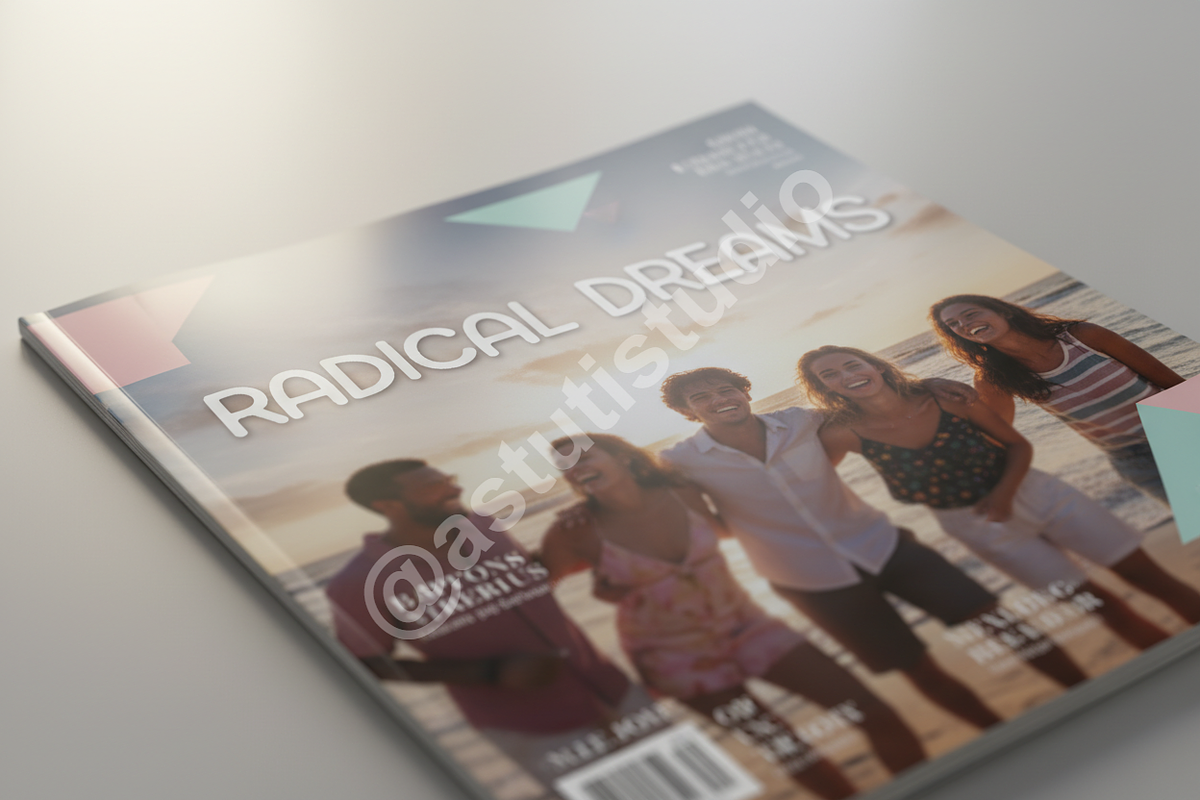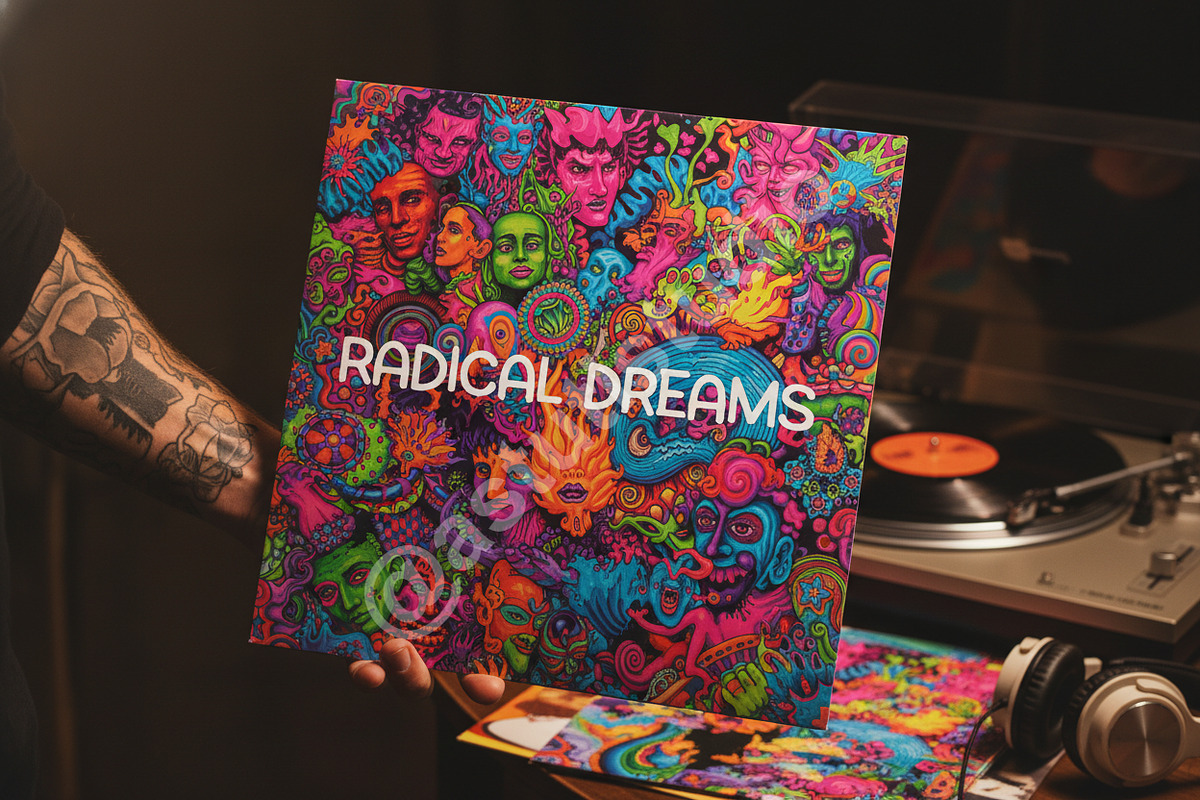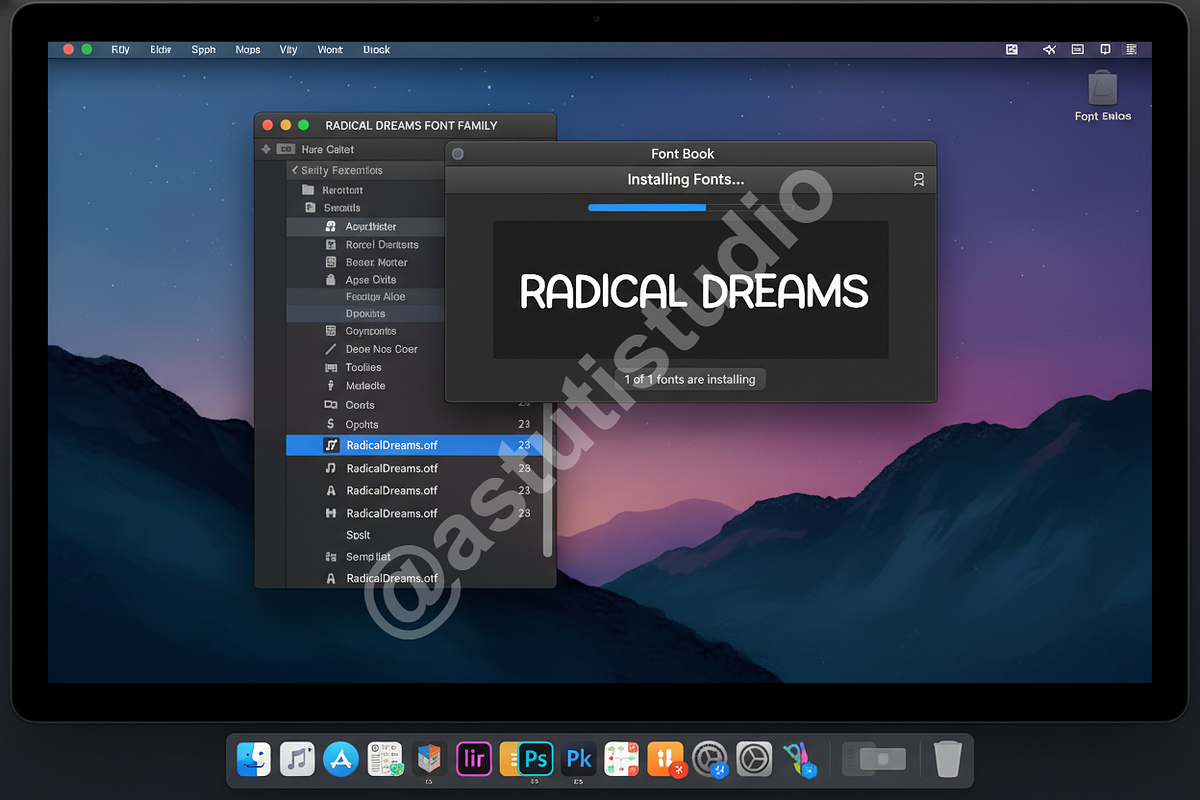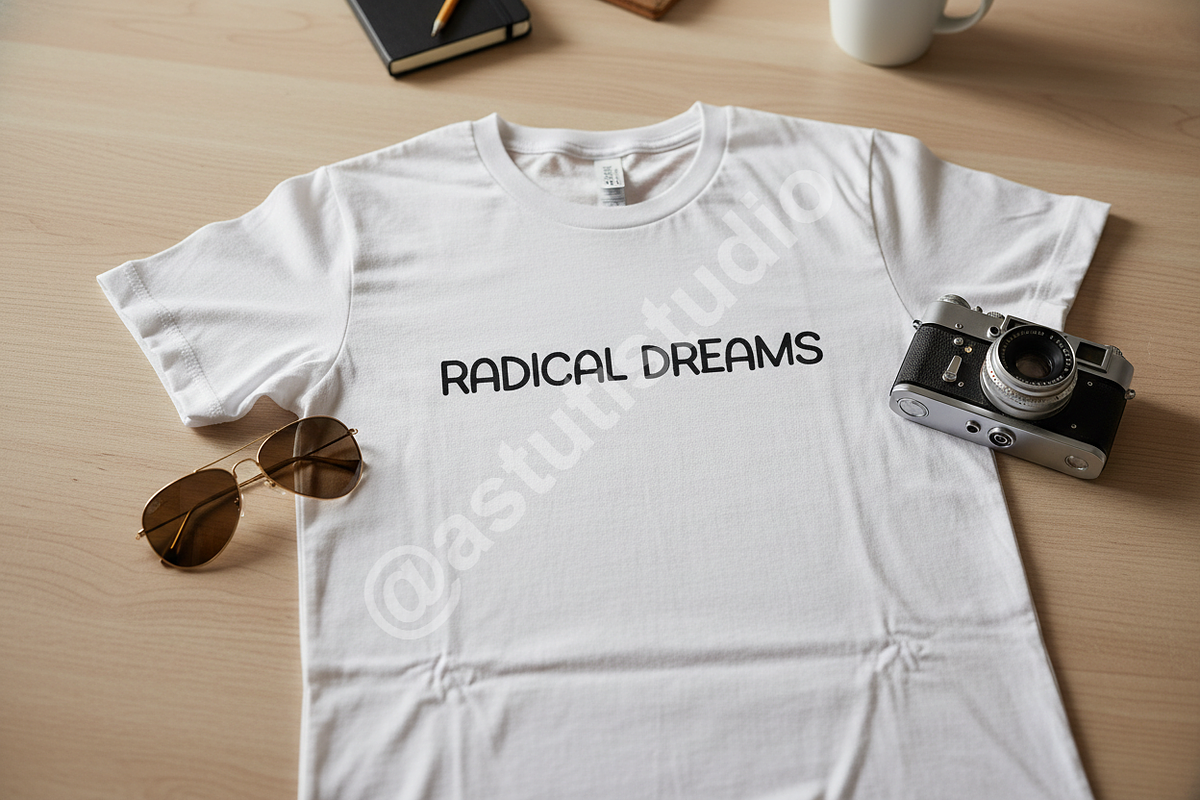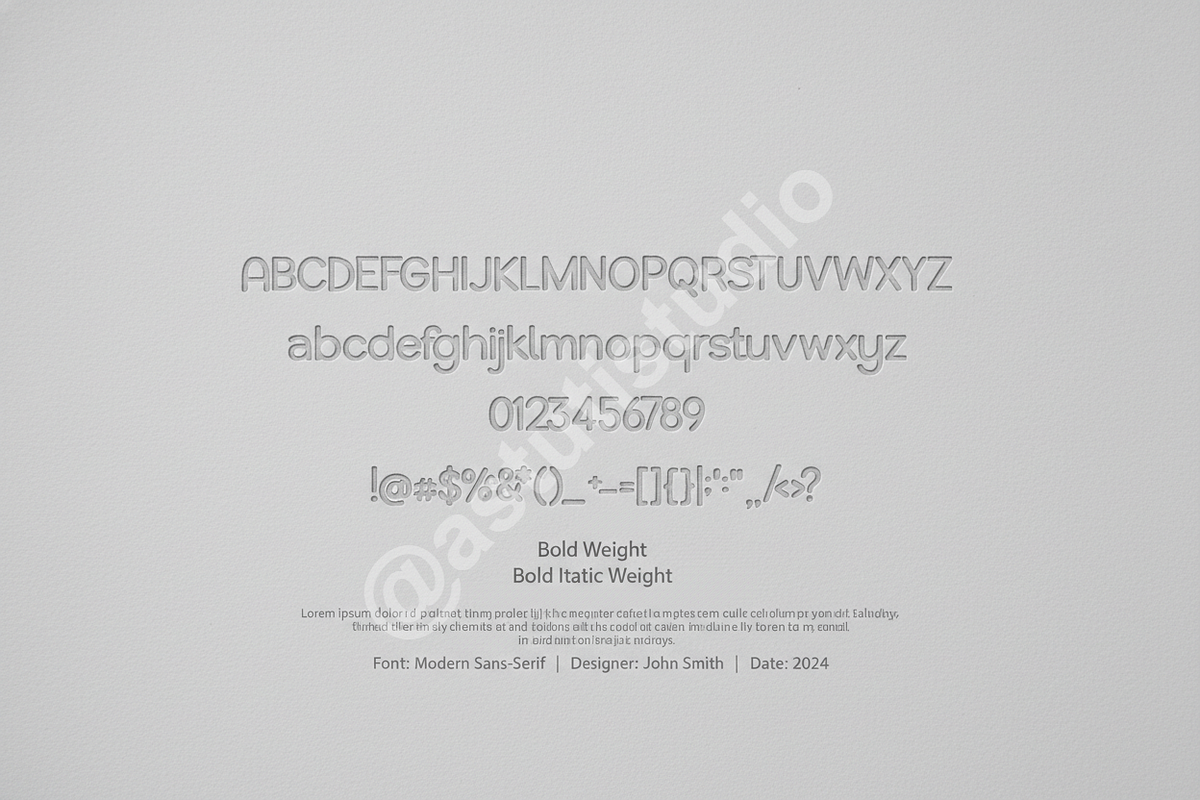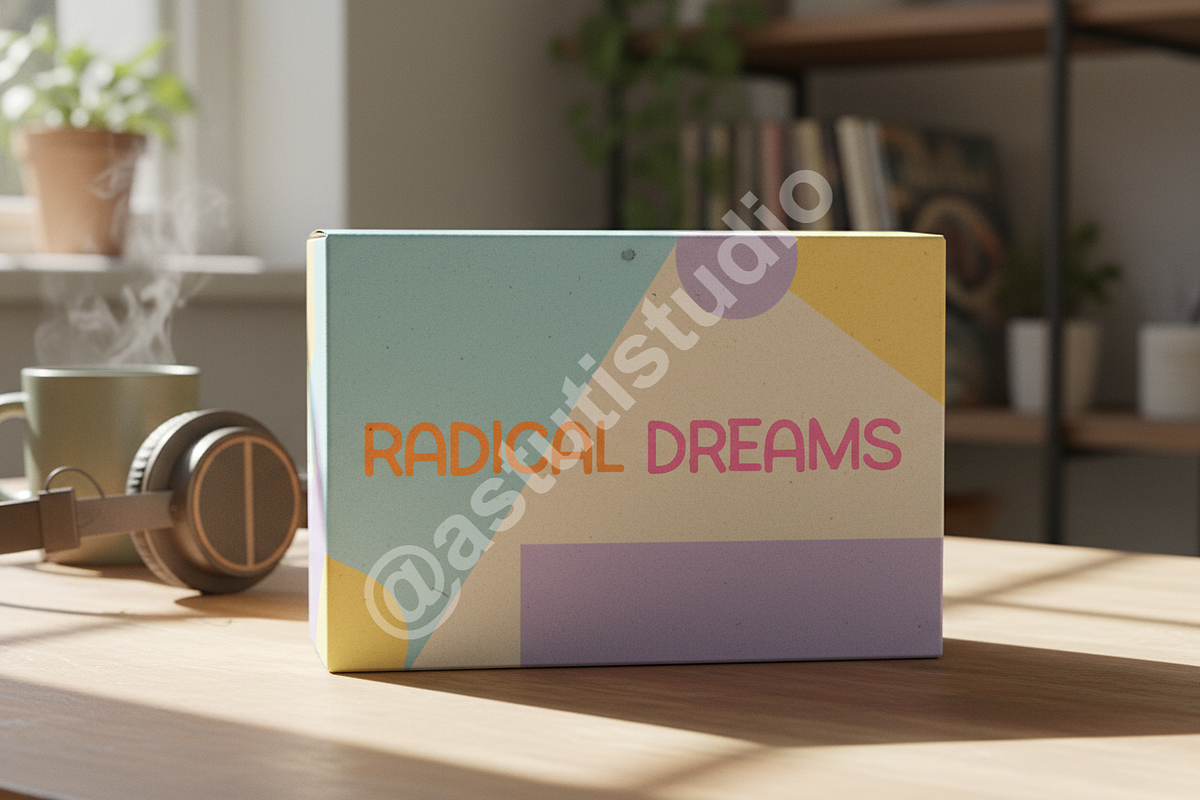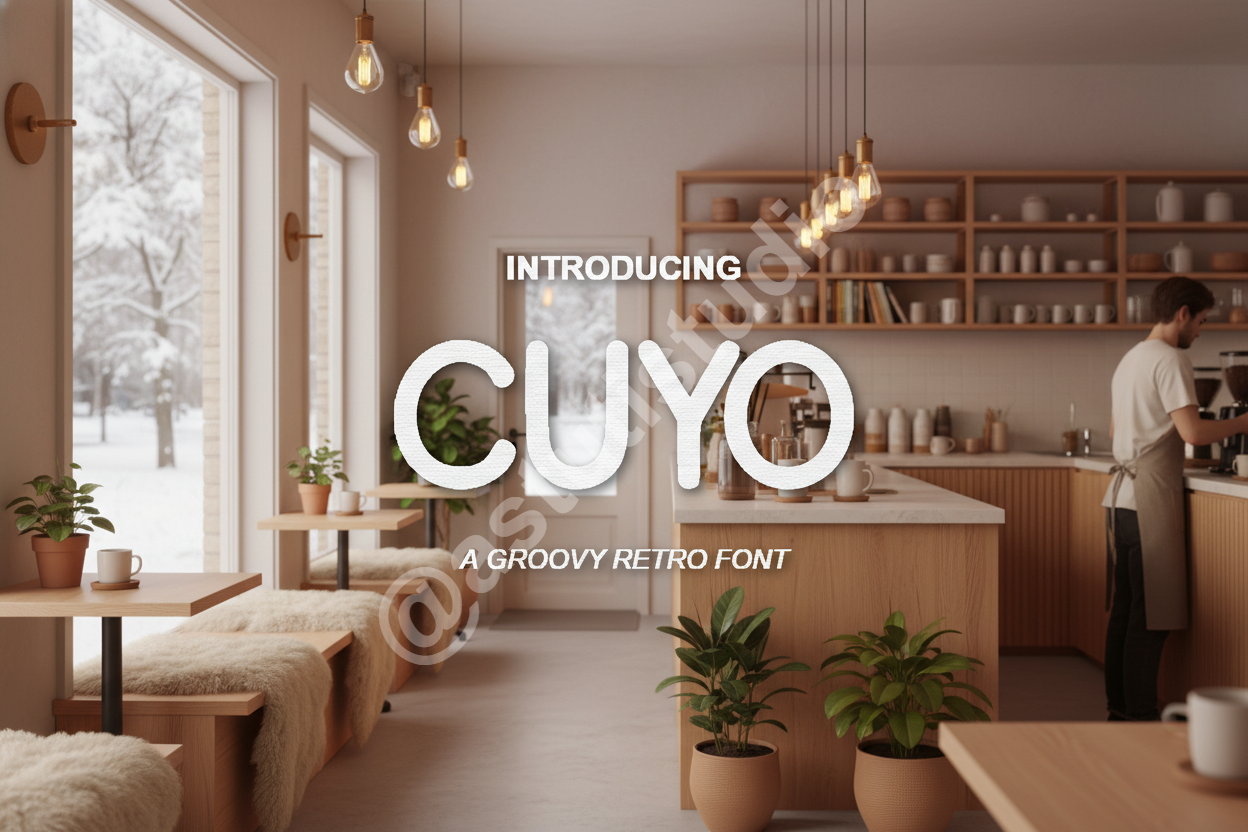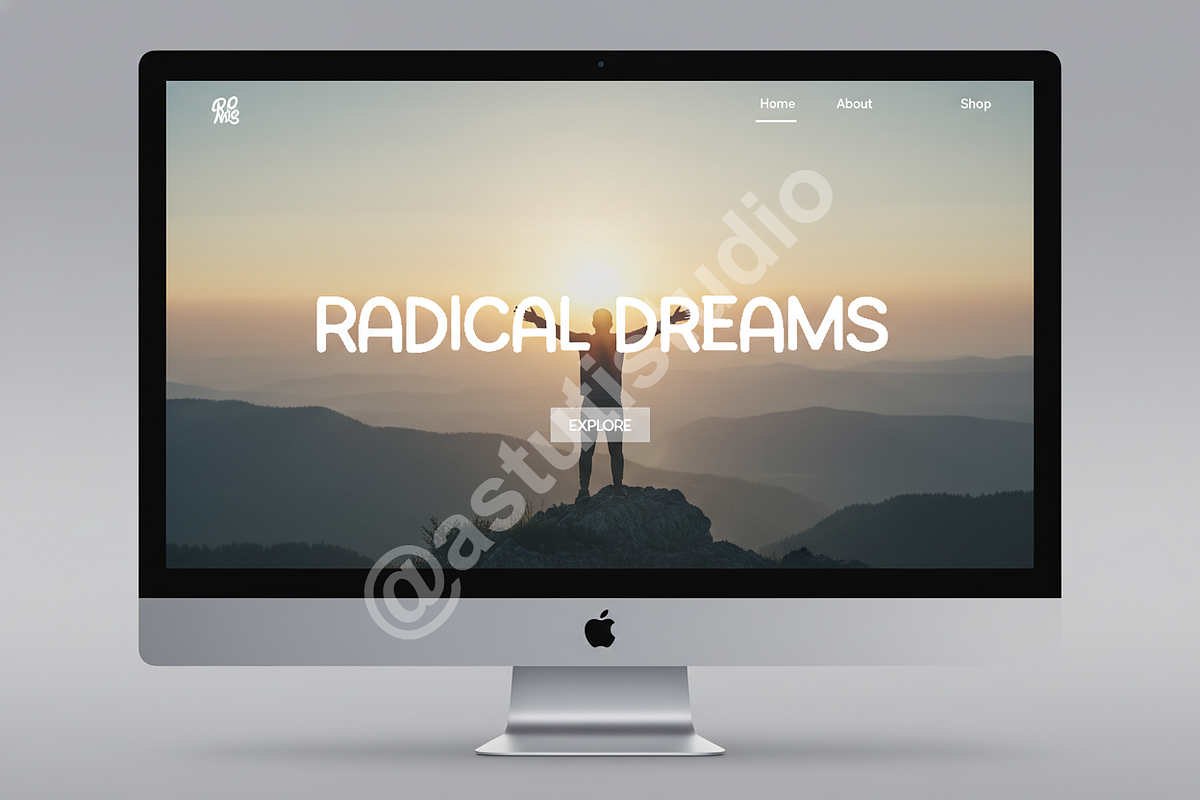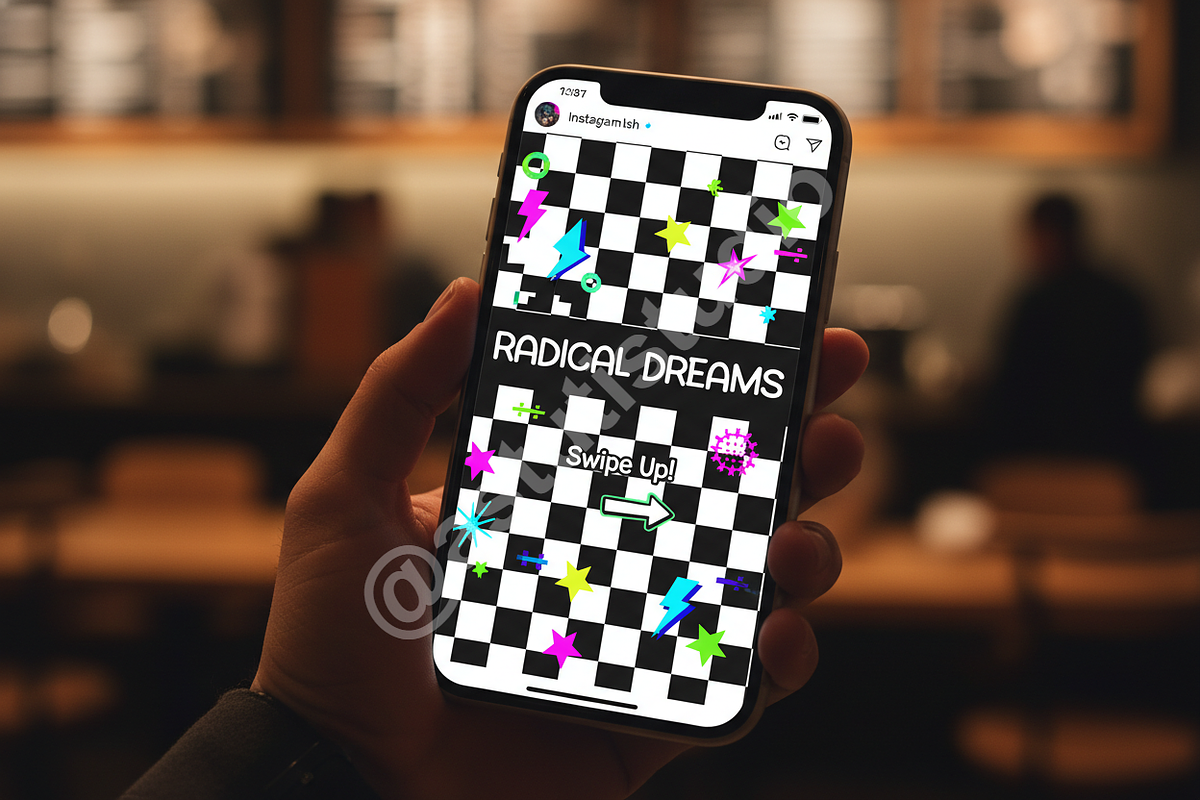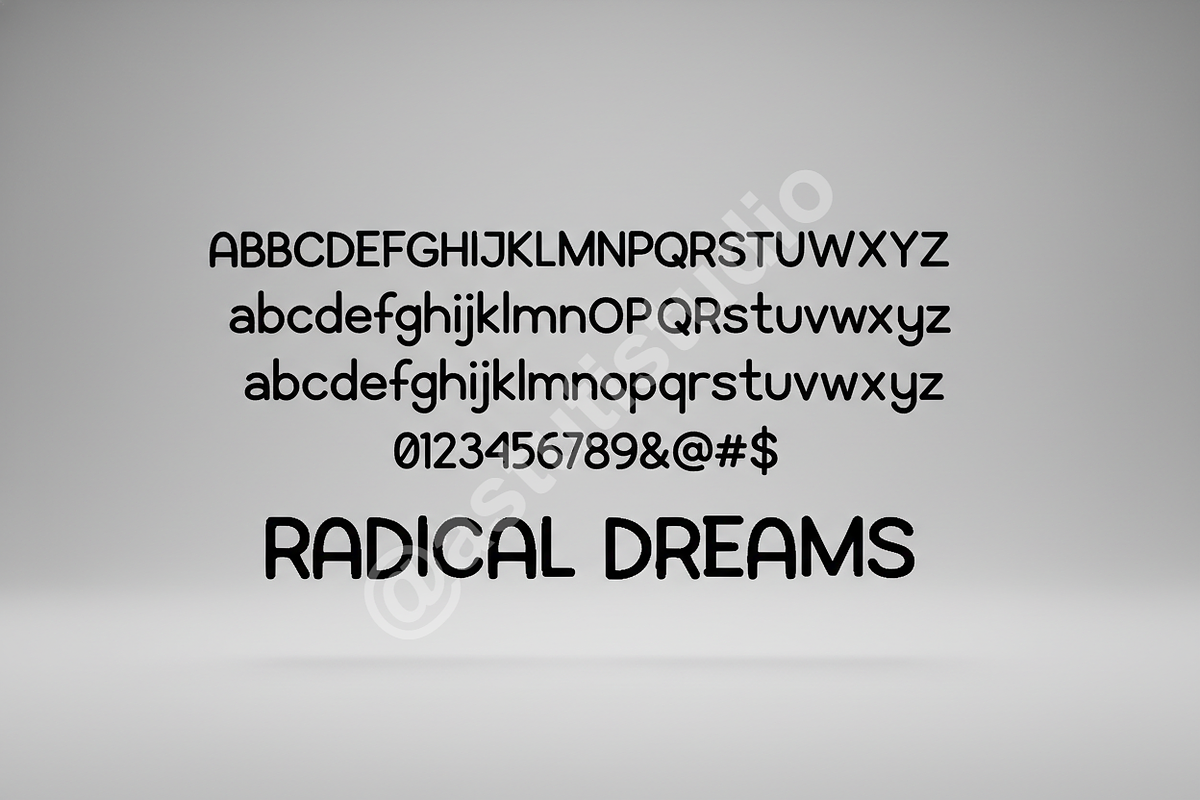
Cuyo | Luxury Modern Serif Typeface
Cuyo is a meticulously crafted modern serif typeface designed for the discerning creative. Its balanced proportions, high contrast, and refined curves deliver an aura of quiet luxury and sophisticated professionalism. Cuyo is the ultimate choice for projects demanding elegance and clarity, seamlessly bridging classic refinement with contemporary design needs.
Perfectly suited for luxury branding identity, high-end editorial layouts (magazines, book covers), sophisticated packaging, and high-impact social media marketing campaigns.
- Wide Language Support (Latin extended A & B)
- Comprehensive Ligatures and Discretionary Alternates
- Full set of Uppercase and Lowercase characters
- Numerals, Punctuation, and Symbols
- Optimized Kerning for seamless reading experience